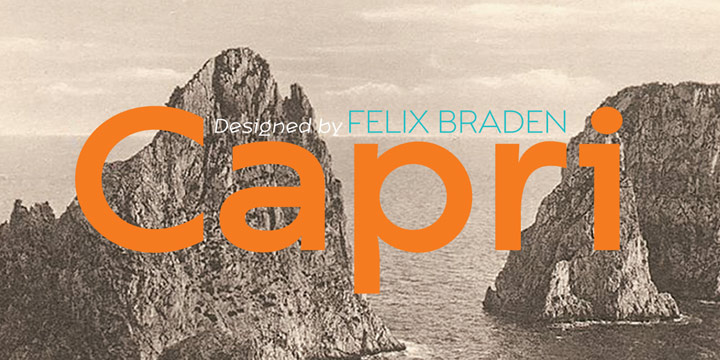
"Capri is a constructed sans serif antiqua in the tradition of Futura and Avant Garde. The proportions of the letters and the overall impression are modern and contemporary but also retain the crude charme of the constructivist concept. The design is based on basic forms as square, circle and triangle and was developed by drawing not writing. That geometric background determines the character of the font, and is accentuated in many features. The diagonal, as visible in the lower case letters e, g and y is one of those attributes, that form the character of the font. In the italic version the diagonal becomes even more significant. This details and the vertically cut endings of the curved strokes give the font its sharp-edged look and its puristic elegance. More…
Different to most other traditional constructivated sans serif typefaces the proportions of the letters drift away from the humanist ideal. Ascenders and descenders are very short in comparison to the x-height and the cap height is even shorter. The widths of the lower case letters as well as that of the upper case letters approximate and give a modern appearance to the font. The axis of the curves is vertical and the contrast in the strokes is low.
Capri is primarily designed to be used as a headline typeface. It stands for a modern interpretation of classical elegance and is particularly suitable for advertising in the fashion or beauty business."